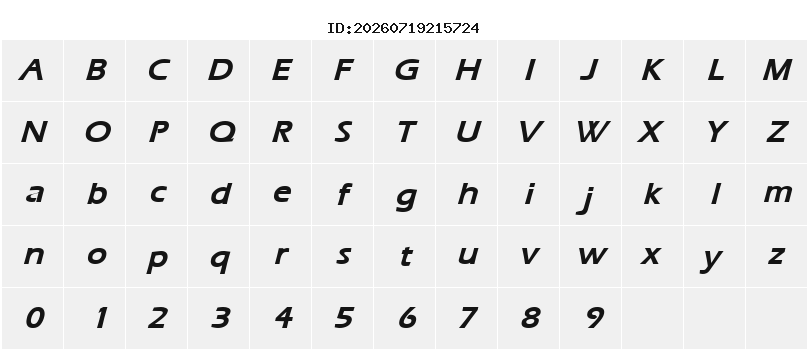
Ergoe-Mild Preview
About Ergoe-Mild.ttf
Ergoe-Mild.ttf is a modern, elegant sans-serif font designed for ultimate readability and visual harmony. Perfect for branding, headlines, web design, and print materials.